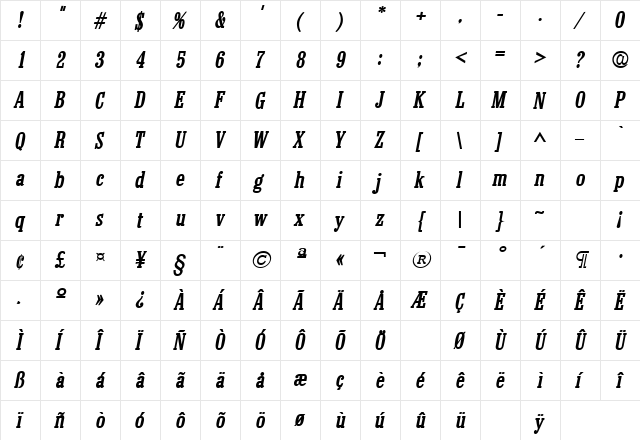
Colonel Bold Italic
Design Context for Colonel Typeface
Colonel is a composed and adaptable typeface that performs quietly and consistently across a wide range of design contexts. Its italic angle brings a sense of urgency and motion to the letterforms. The heavy weight commands attention and anchors typographic hierarchies.
Pro Tip: Use Colonel for emphasis, pull quotes, and subheadings where its slanted energy can add rhythm to the layout.